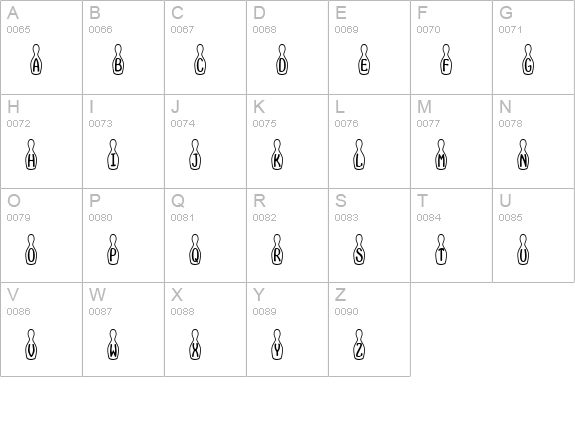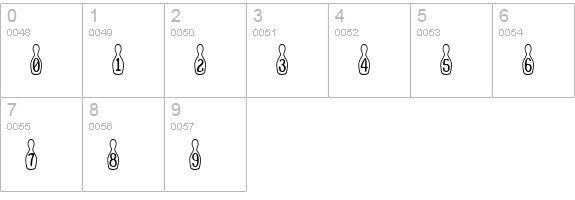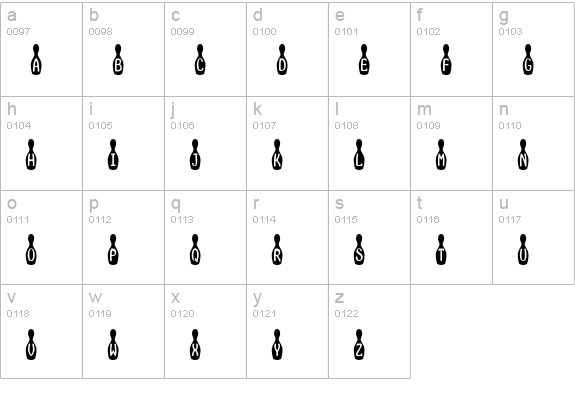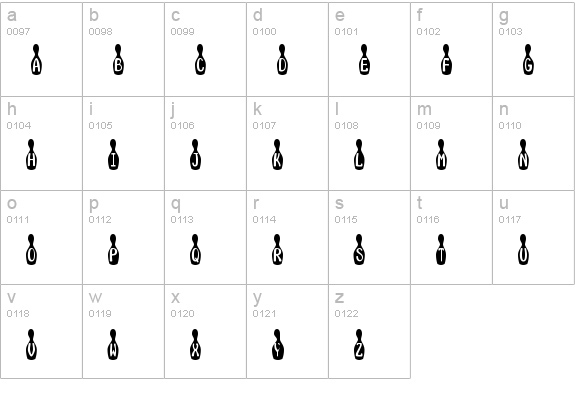
Bowling Font Details
The Bowling font is a playful and eye-catching typeface perfect for adding a touch of fun to your designs. With its bold strokes and dynamic letterforms, this font is sure to stand out and make a statement. Whether you're creating posters, banners, or social media graphics, Bowling font will grab attention and leave a lasting impression. What's even better is that the Bowling font is completely free to download at FontsMarket.com. Yes, you read that right - you can get your hands on this fantastic font without spending a dime. So why wait? Head over to FontsMarket.com now and start using the Bowling font to take your designs to the next level.